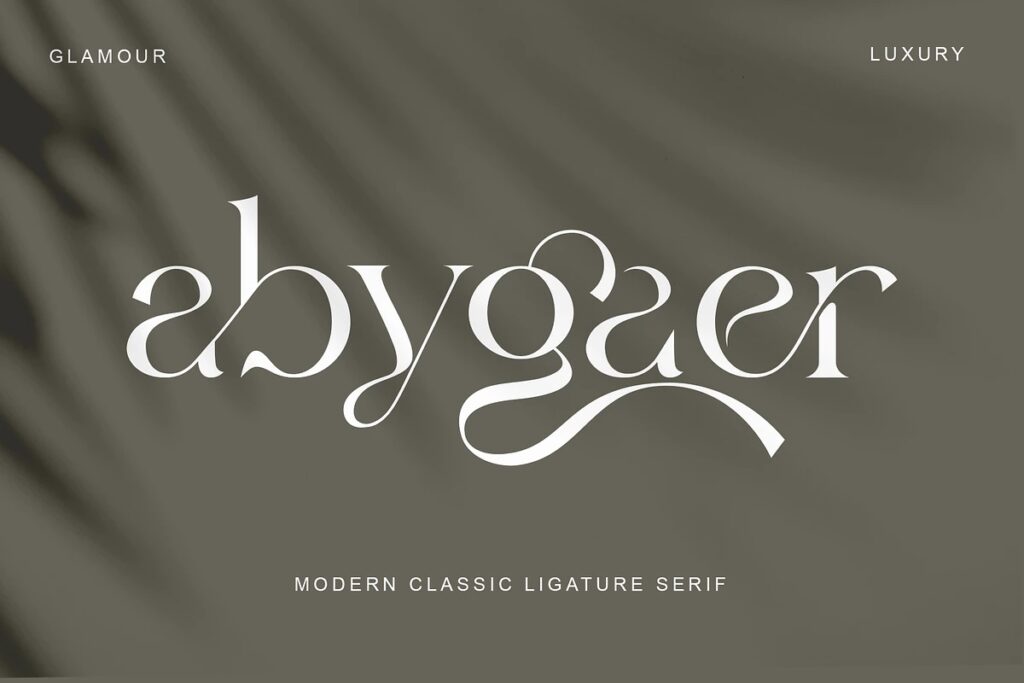
Abygaer: The Classic Ligature Serif Typeface for Elegant Typography
If you’re looking for a sophisticated serif typeface that brings both style and elegance to your designs, Abygaer is the perfect choice. With its distinctive OpenType features, this font is designed to make your typography stand out in the most refined way possible. Whether you’re working on branding, editorial layouts, or invitations, Abygaer offers a versatile and elegant solution.
What is Abygaer?
Abygaer is a classic ligature serif font that combines a sleek, stylish look with functionality. Its letters seem to dance and twist harmoniously, creating unique typography that catches the eye. The rich selection of OpenType ligatures and alternates allows you to create a wide variety of elegant designs with ease.
Key Features of Abygaer
Interwoven Ligatures & Alternates:Abygaer comes packed with OpenType ligatures and stylistic alternates, giving you a variety of ways to customize and enhance your designs.
Full Set of Characters:Abygaer includes a complete set of uppercase and lowercase letters, multilingual symbols, numerals, punctuation marks, and stylish alternates. This wide range of glyphs ensures that your design possibilities are endless.
Multilingual Support:With its full set of multilingual symbols, Abygaer can be used for projects aimed at a global audience, making it ideal for international branding or editorial work.
Branding & Logos:Abygaer’s elegant ligatures and clean serifs make it perfect for creating memorable logos and sophisticated brand identities.
Editorial & Print Design:Whether you’re working on a magazine layout, book cover, or invitation, Abygaer’s alternates and stylistic sets offer you the flexibility to create beautiful and cohesive designs.
Web & Social Media:With its classic and timeless appeal, Abygaer ensures that your web banners, social media graphics, and advertisements look polished and professional.
Elegance:Abygaer’s ligatures and alternates bring a sophisticated charm to any design, making it a go-to choice for luxury brands and projects requiring a high level of style.
Customization:With OpenType features and a wide range of glyphs, Abygaer offers endless possibilities for creative expression.
Versatility:Whether you’re designing for print, digital, or branding purposes, Abygaer fits seamlessly into any project.